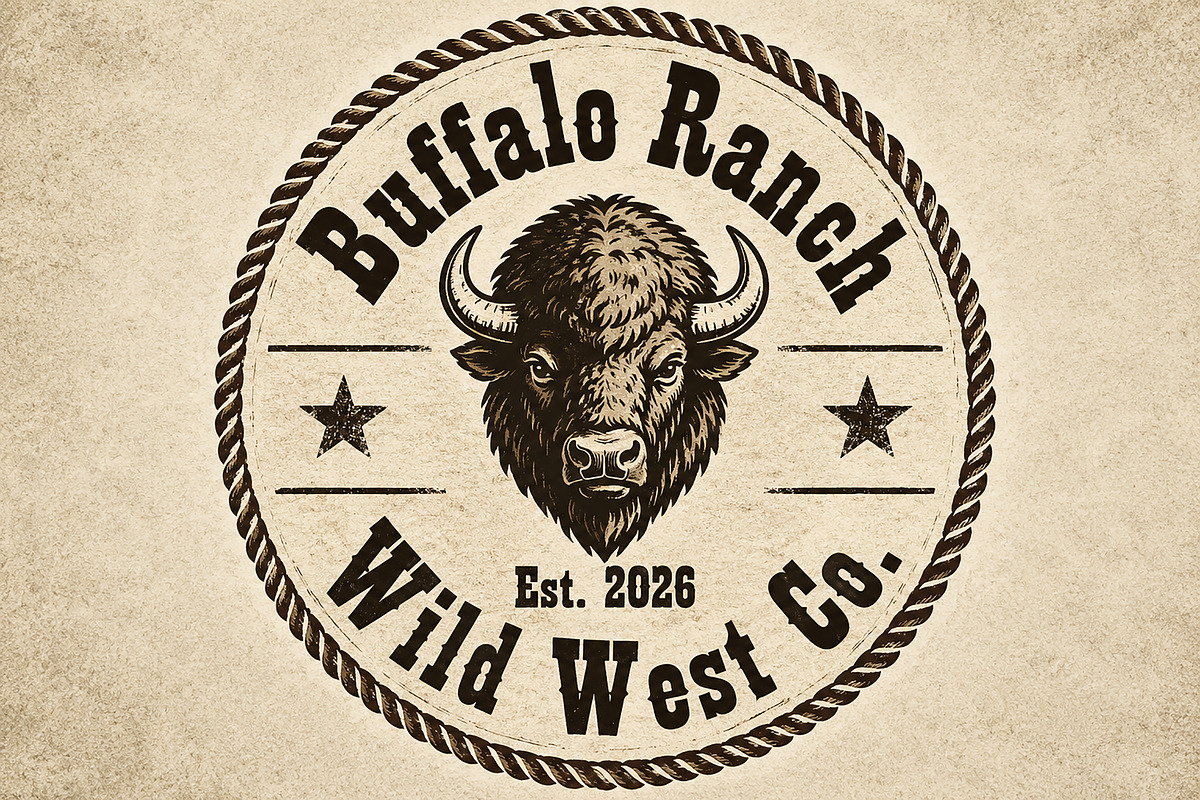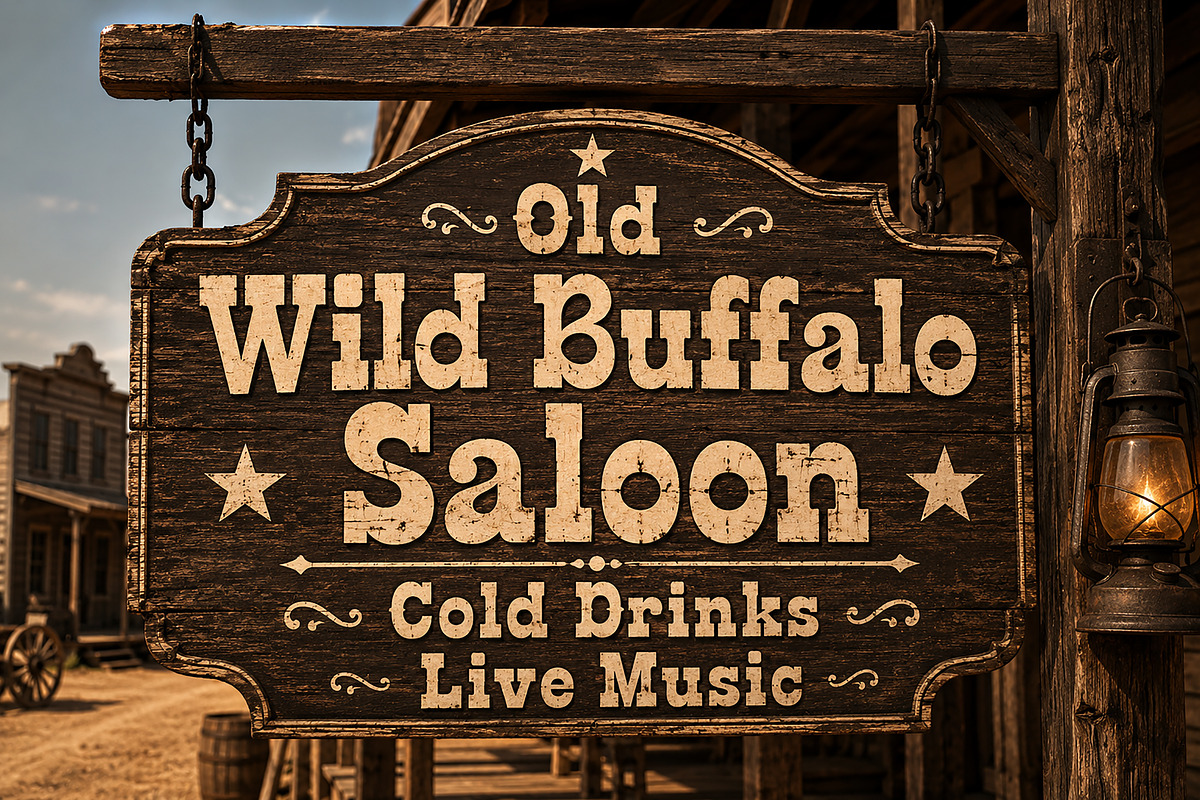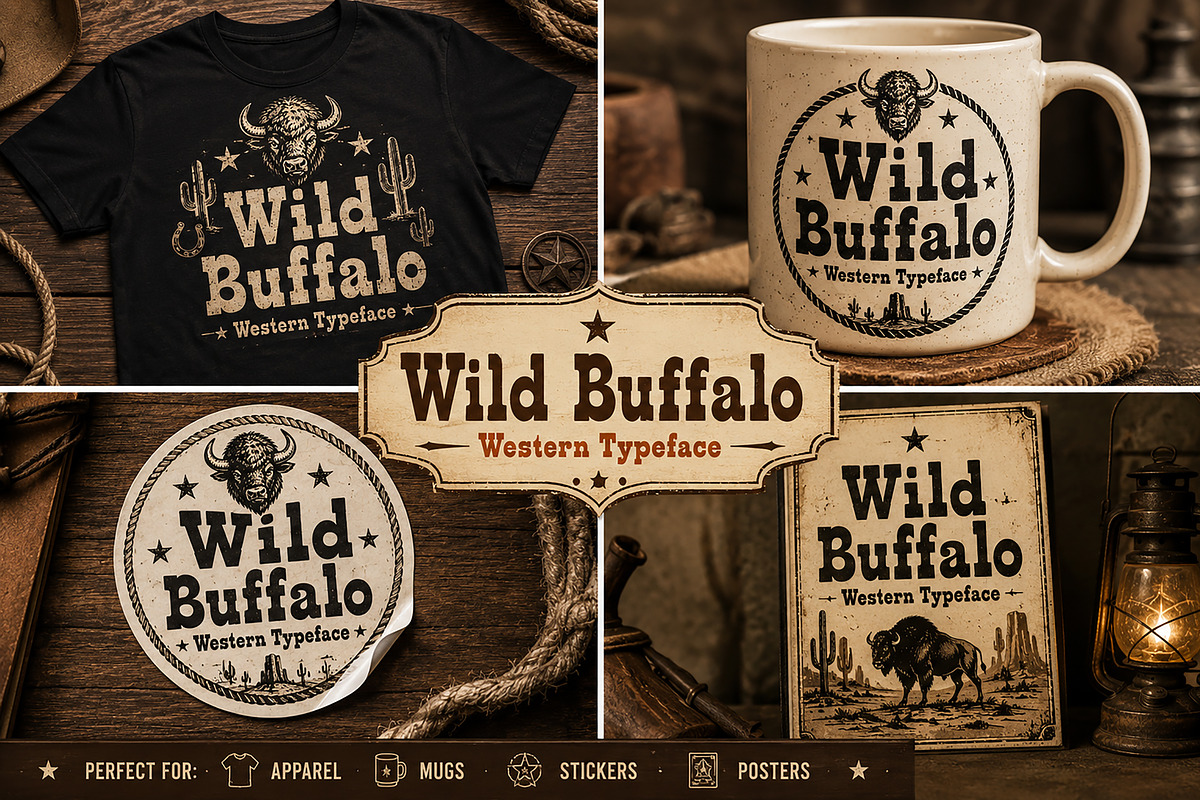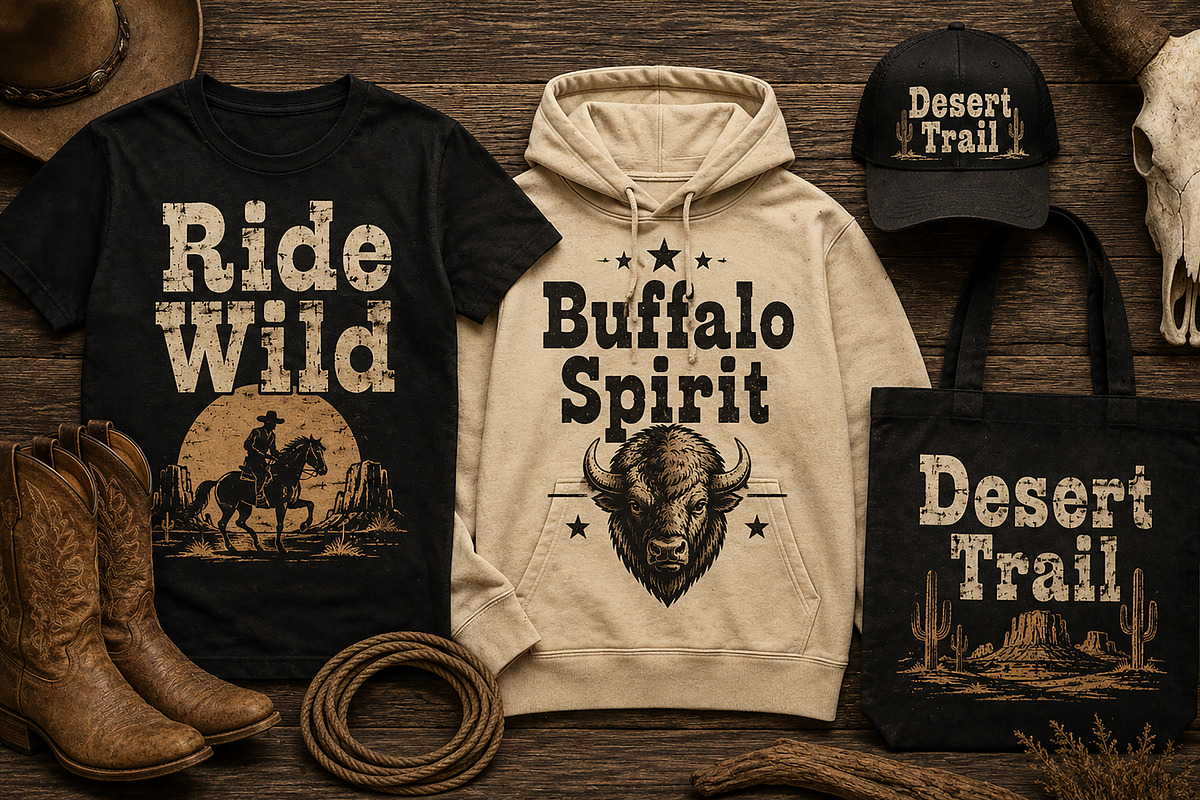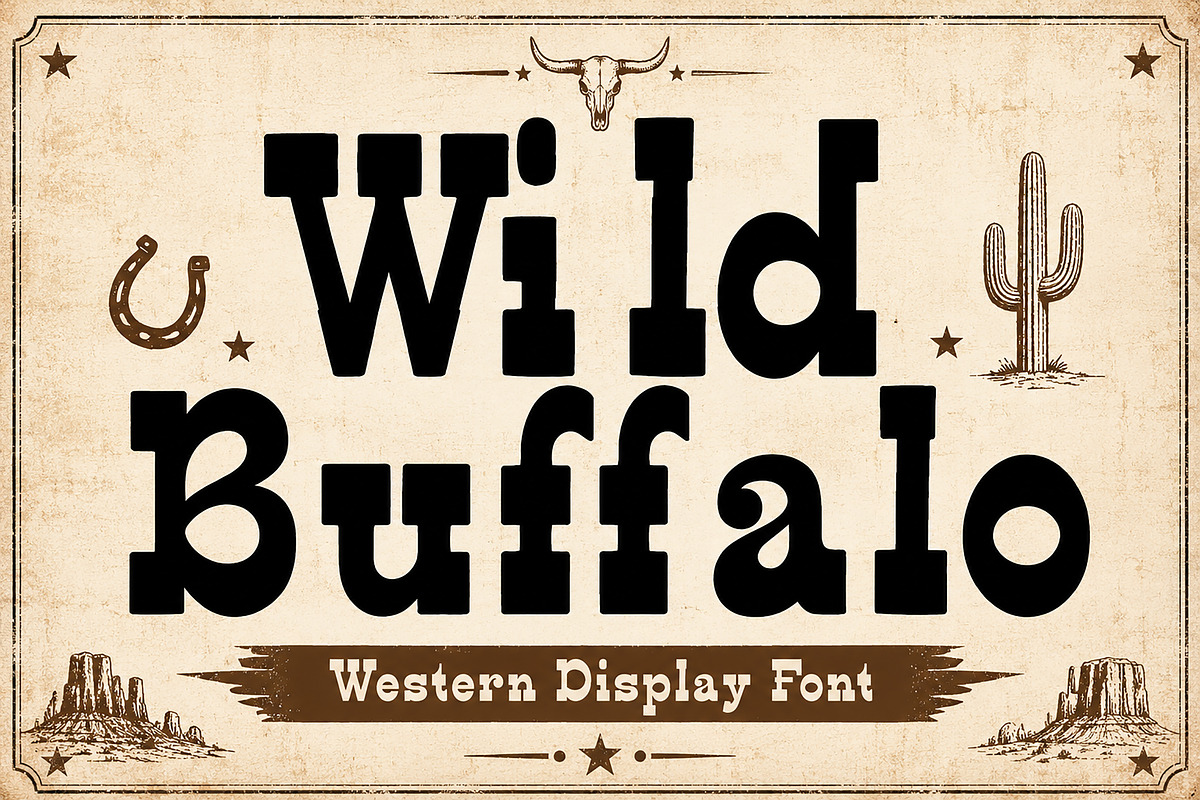
Wild Buffalo
Wild Buffalo – Western Display Font
Wild Buffalo is a bold western display font inspired by vintage saloon signs, cowboy culture, ranch branding, and classic wild west typography. Featuring strong chunky letterforms with a rugged handcrafted feel, this font is perfect for creating eye-catching retro western designs with authentic rustic character.
Whether you're designing logos, apparel, posters, packaging, signage, or social media graphics, Wild Buffalo delivers a powerful western vibe that instantly stands out. Ideal for cowboy themes, desert branding, rodeo events, country merchandise, rustic labels, and print-on-demand products.
Western & Cowboy Branding
Vintage Logos & Badges
Ranch & Saloon Sign Design
T-shirt & Apparel Design
Posters & Flyers
Packaging & Labels
Stickers & Merchandise
Rustic Social Media Graphics
Print-on-Demand Products
Uppercase Characters
Bold Western Style
Vintage Rustic Feel
Perfect for Display Purposes
Strong Retro Character